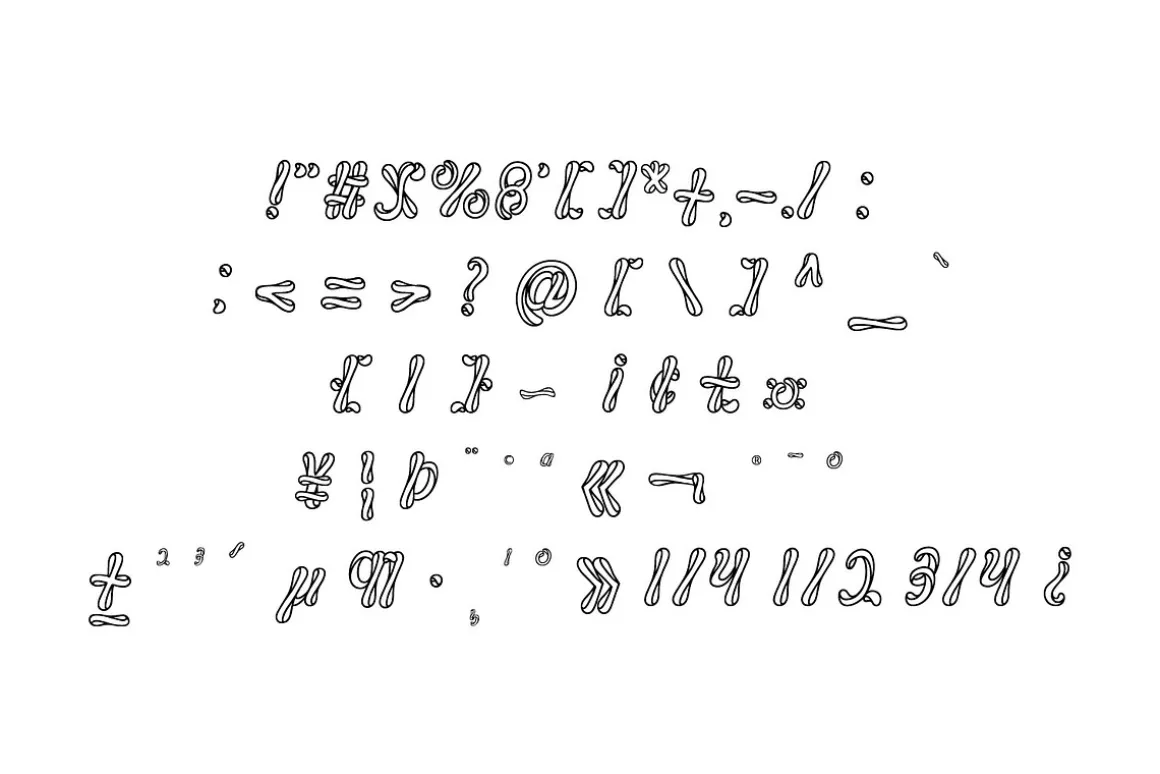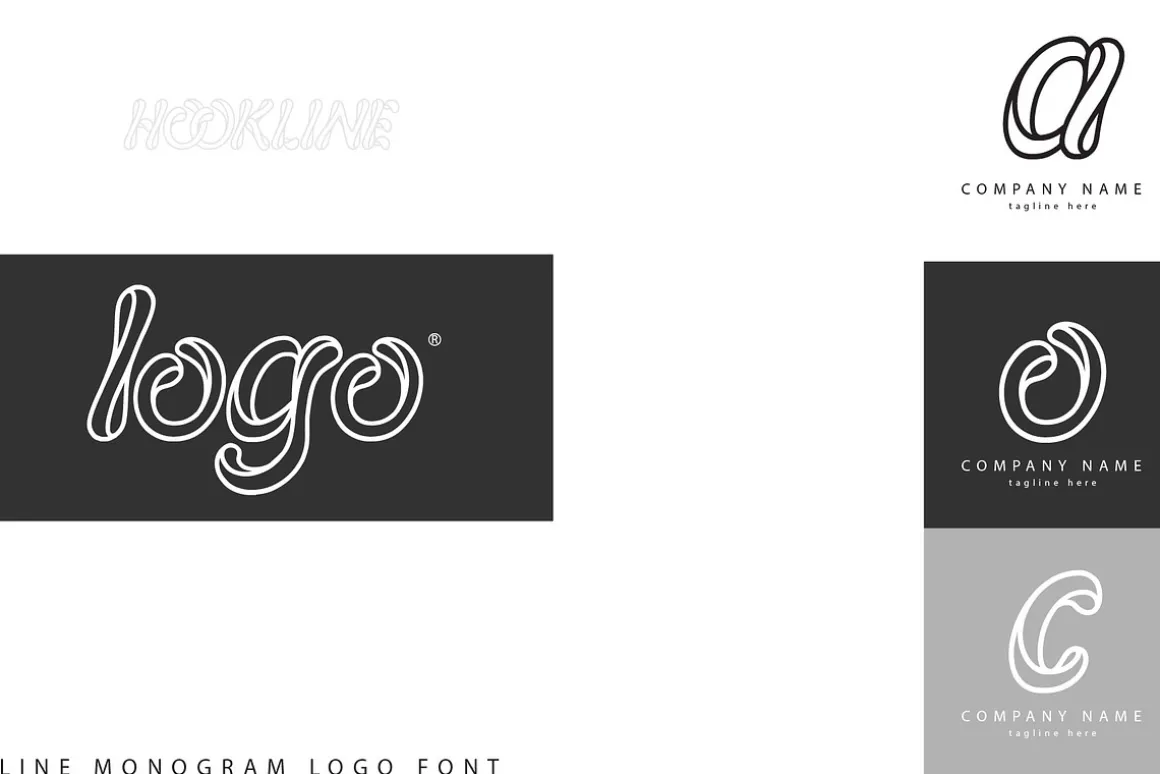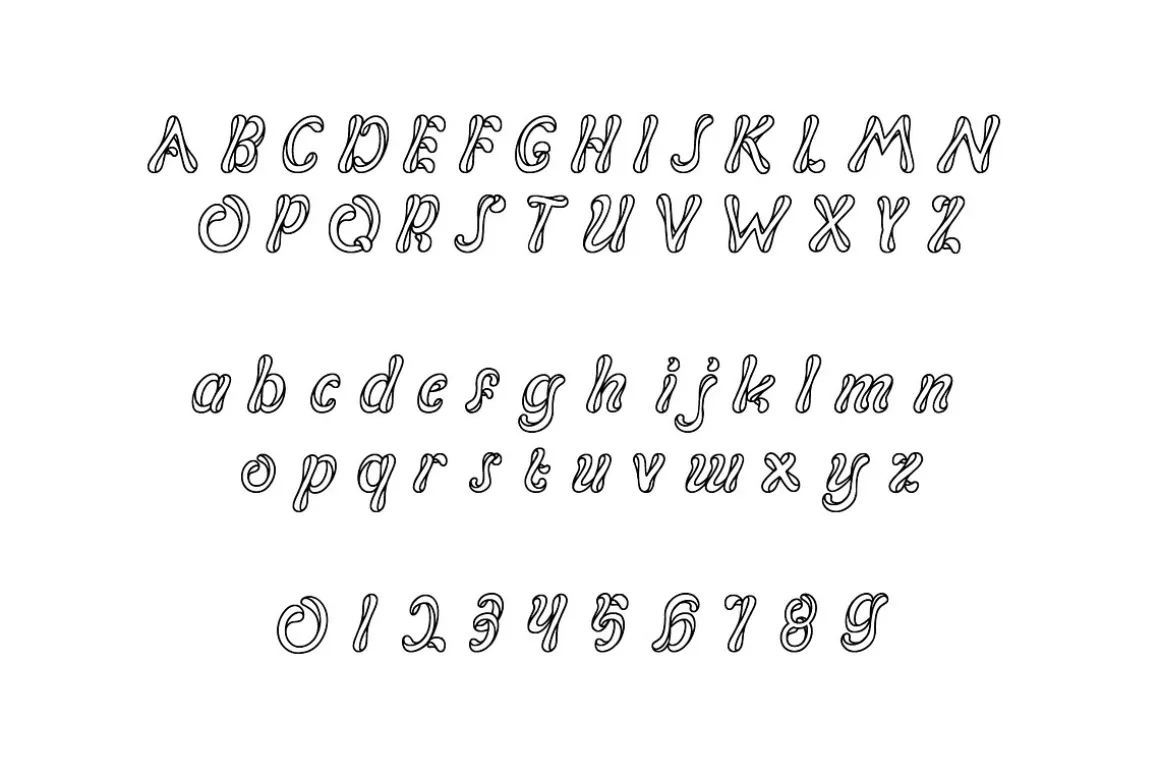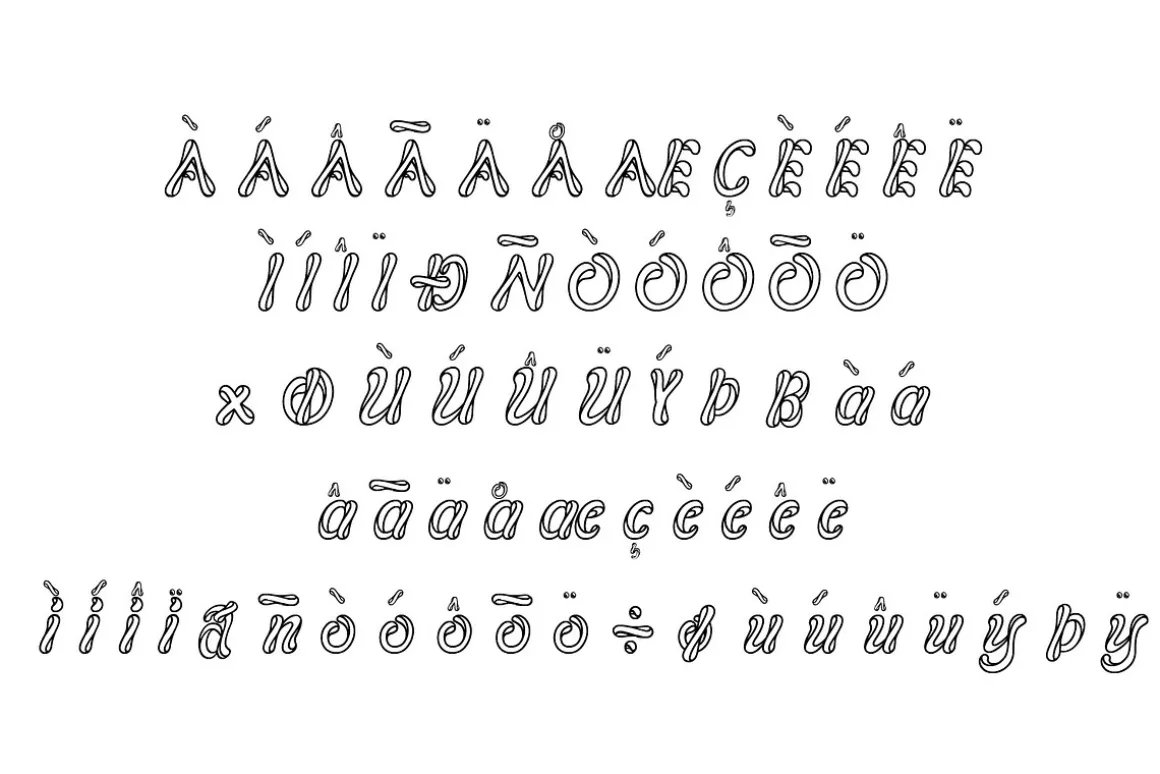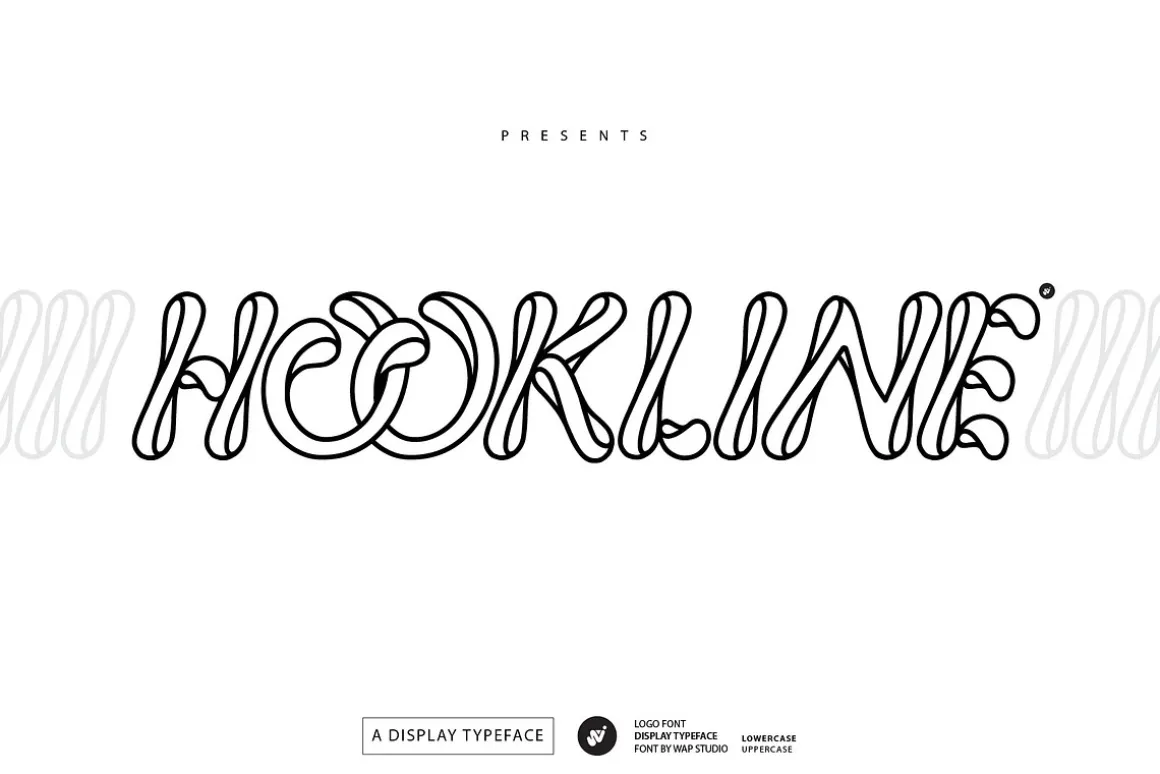
HOOKLINE Font will be perfect for a variety of projects such as logo & branding, headlines, invitations, posters, flyers, wedding designs, social media posts, advertisements, product packaging, product designs, labels, photography, watermarks, special events or poster titles.